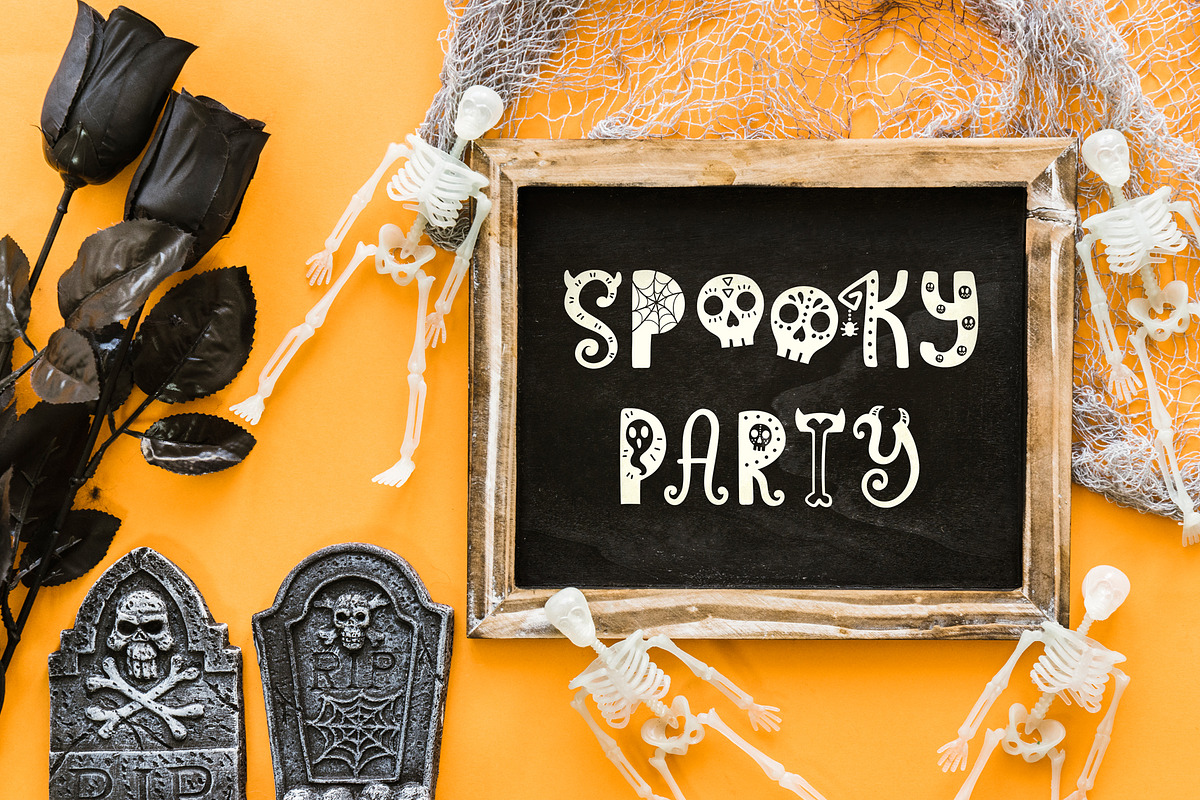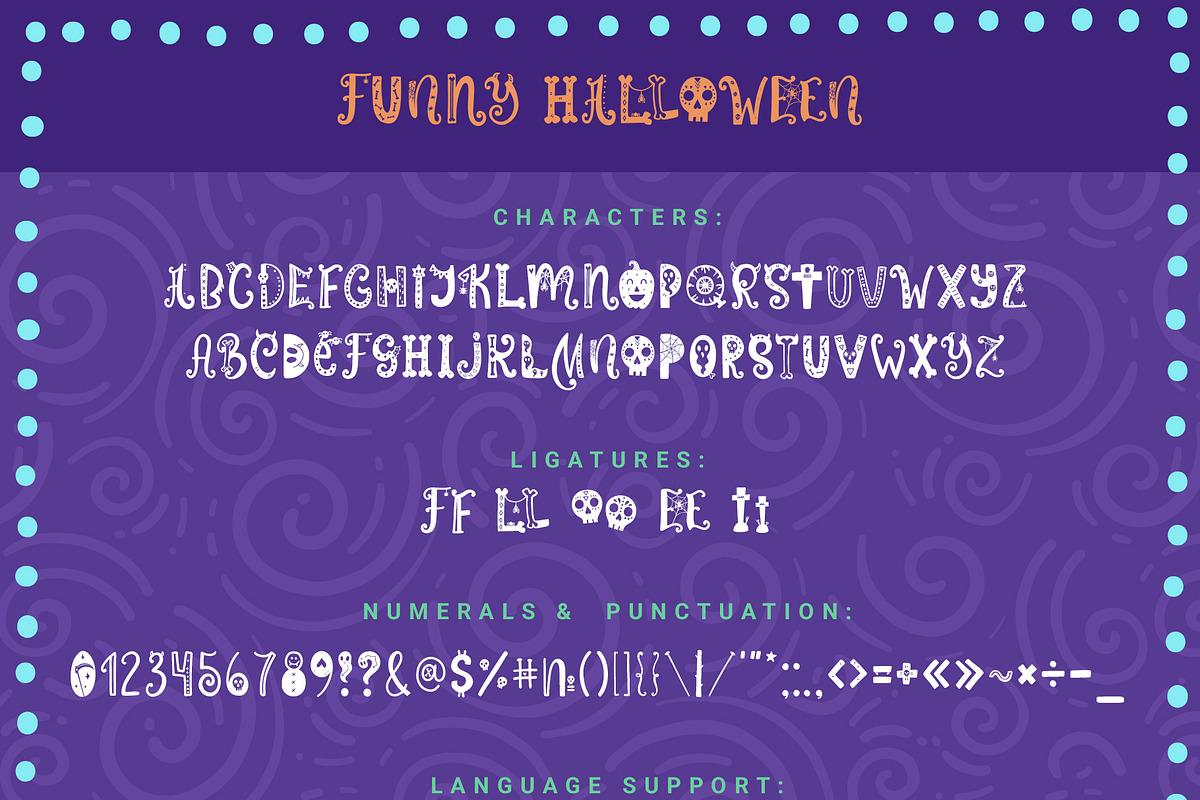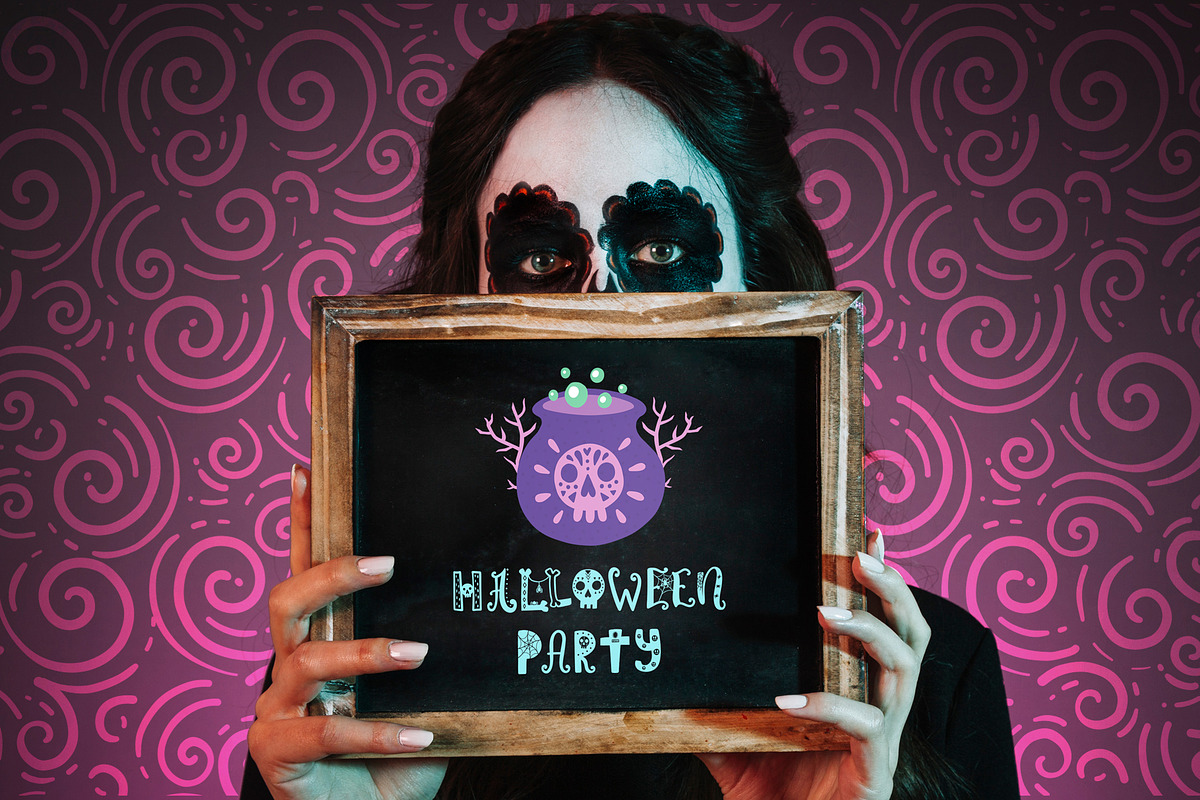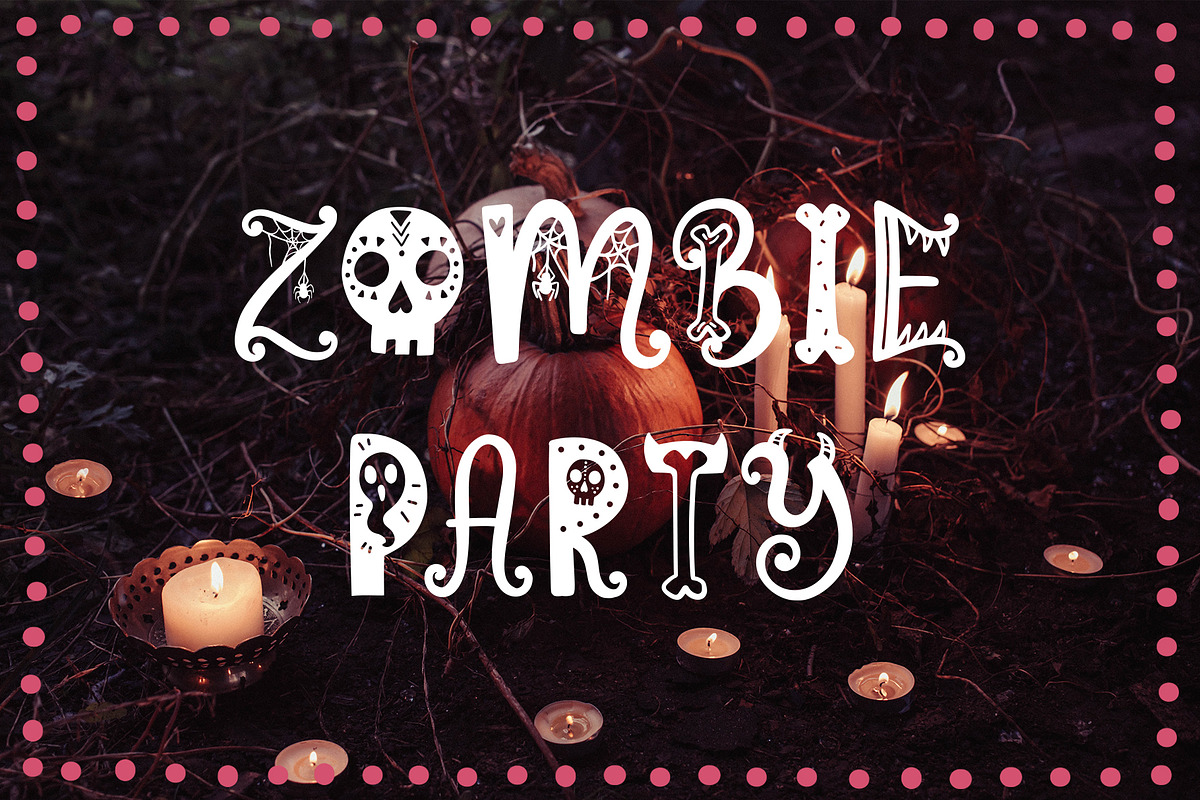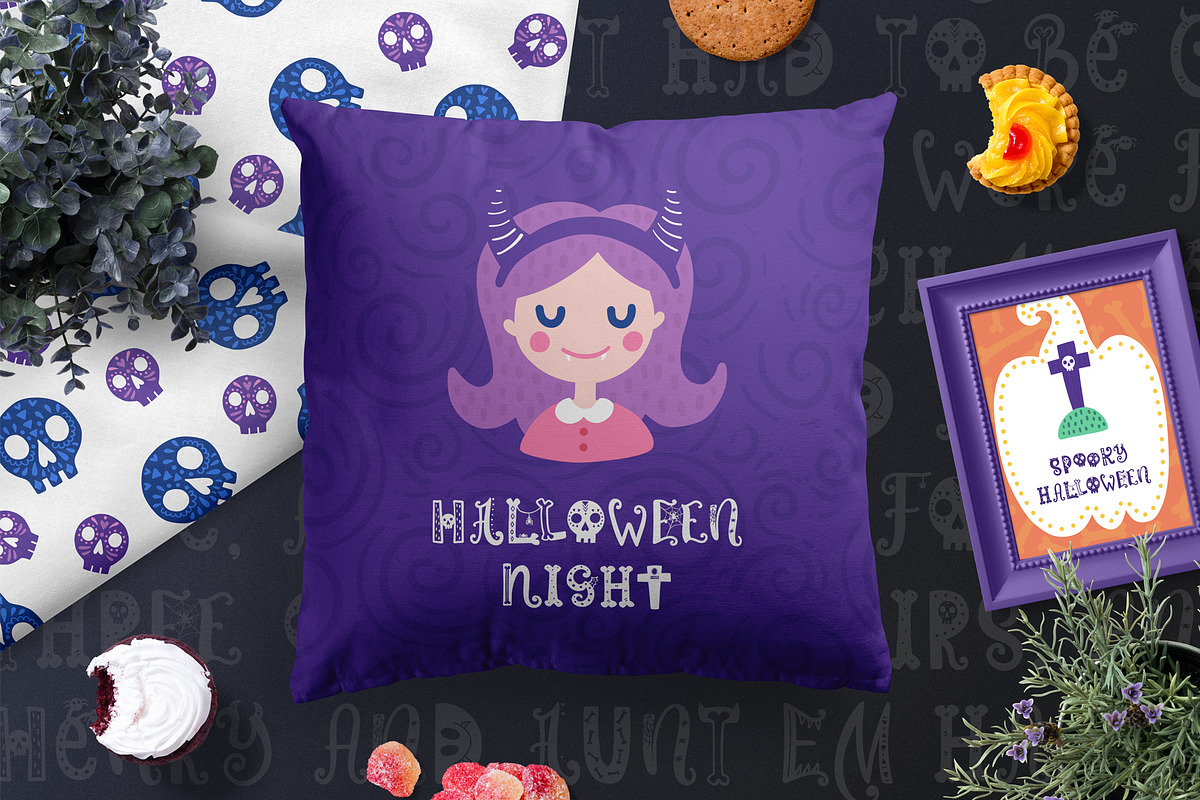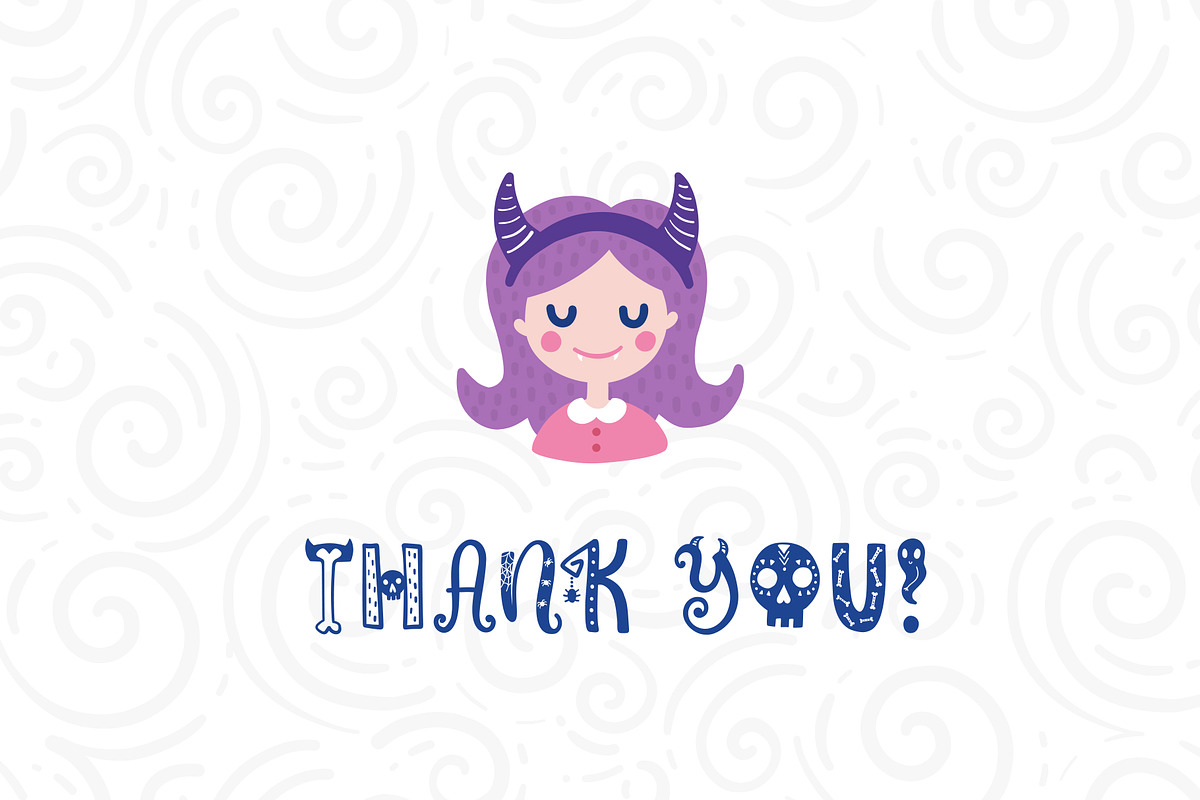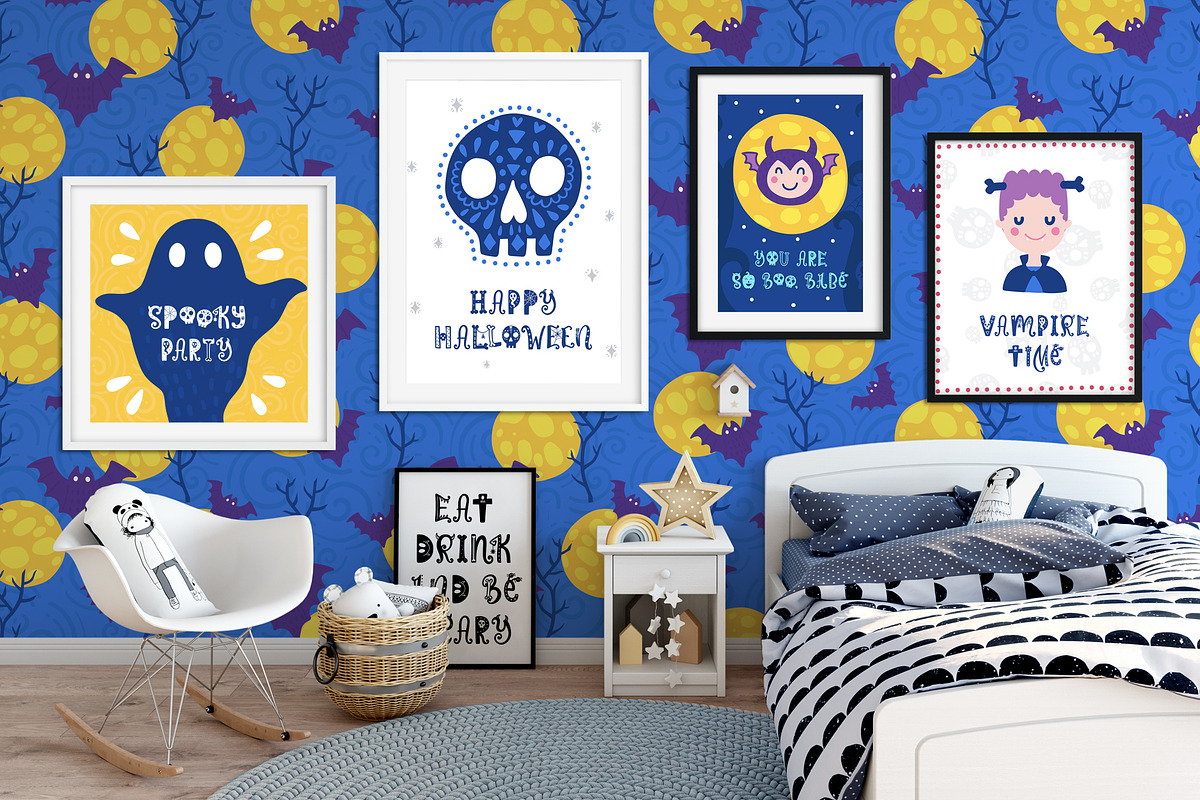
Funny Halloween Font
♥ Funny Halloween Font - cute script for your projects! ♥
This font is perfect for cards, prints, logos, invitations, arrange illustration and decoration!
It has upper and lower case letters, numbers, special characters, accents and ligatures.